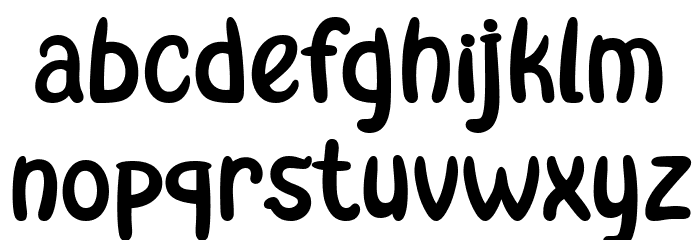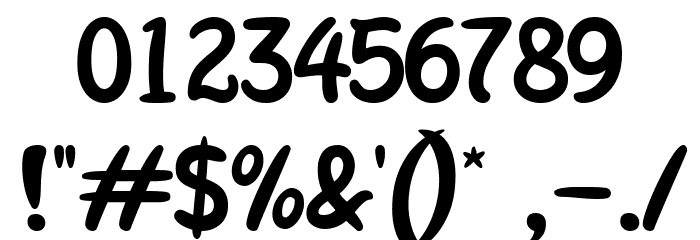
Misellia And Friend Font
This playful and friendly font features rounded, bold characters with a hand-drawn appearance. The letters have a consistent thickness, giving them a uniform look that is both approachable and casual. The curves are smooth and the overall design is slightly whimsical, making it ideal for projects that require a touch of fun and creativity. The numbers and special characters maintain the same playful style, ensuring a cohesive look across all text elements. This font is perfect for children's books, playful branding, or any design that aims to convey warmth and approachability.
A playful, hand-drawn font with rounded, bold characters.
- Proposed Projects: Ideal for children's books, playful branding, greeting cards, and creative posters.
- Category: Handwritten
- Overall Style: Playful